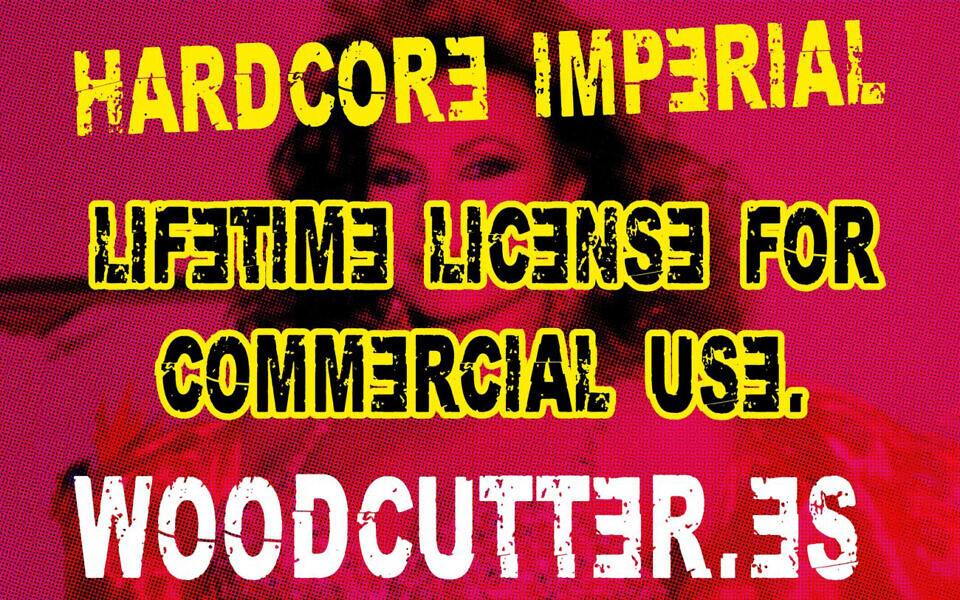
Hardcore Imperial is a bold, distressed display font crafted by Woodcutter. It features a rugged, worn aesthetic ideal for edgy designs, posters, or album covers.